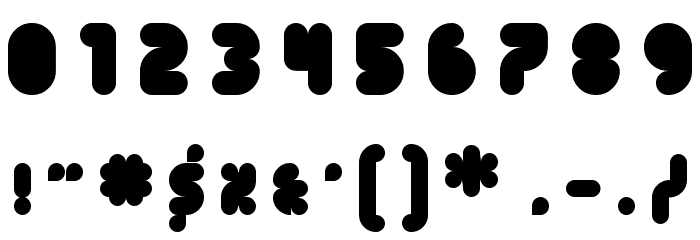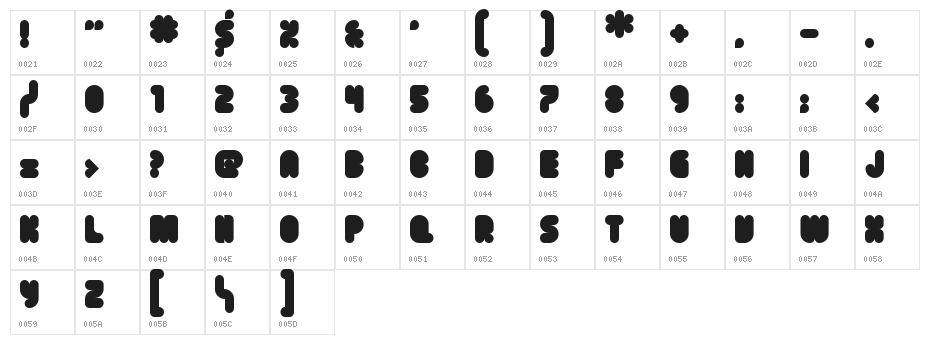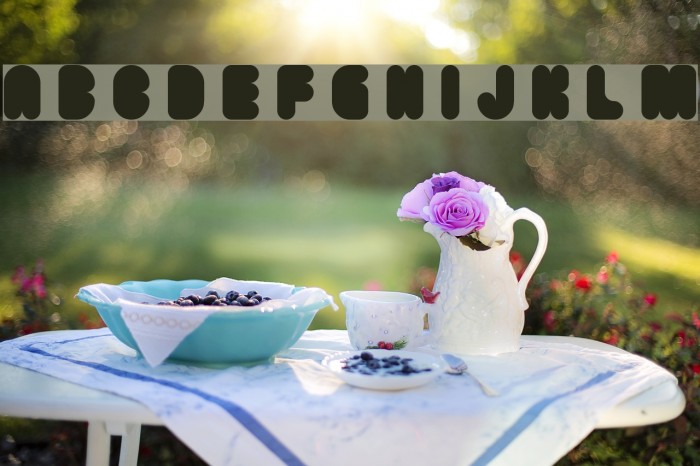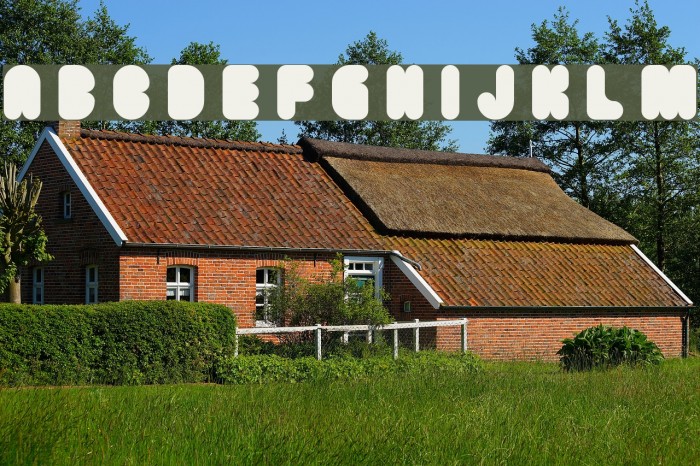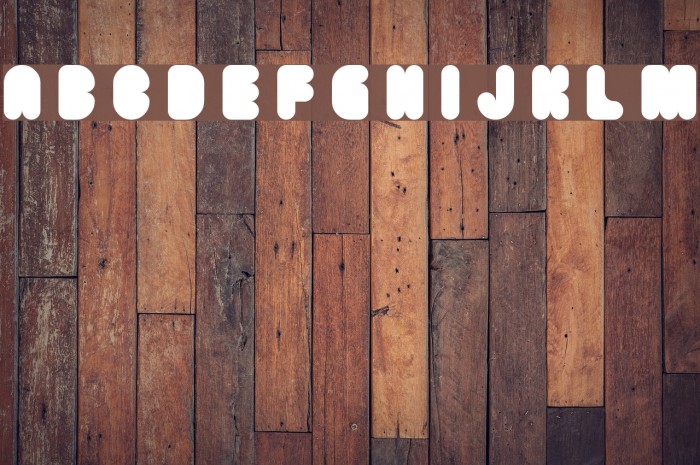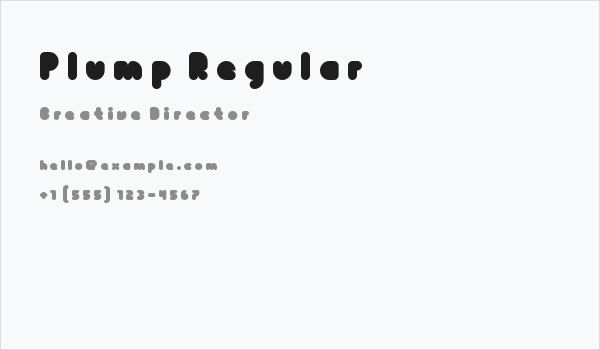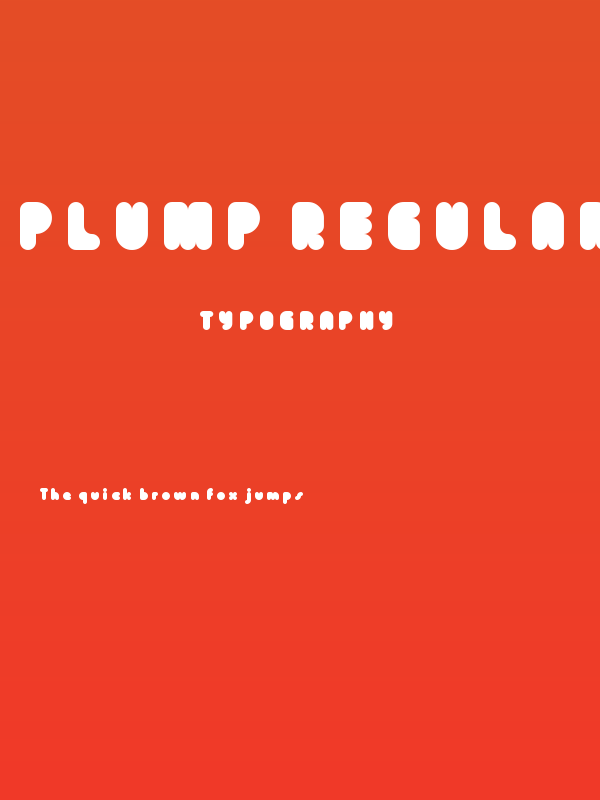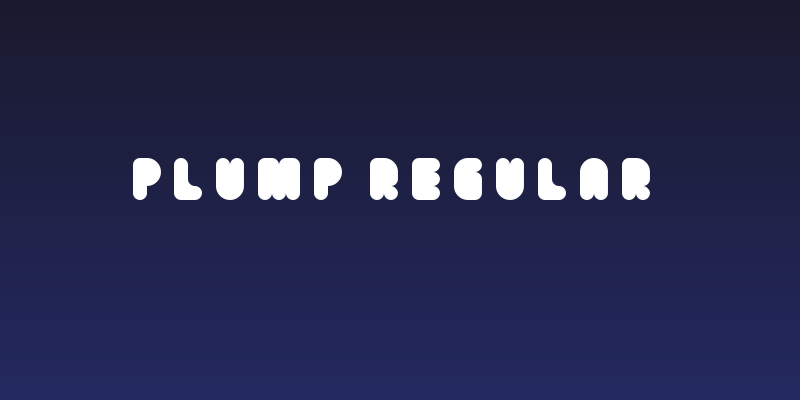
Plump Regular Font
Plump Regular Description
This font features a bold and rounded style, characterized by its thick, uniform strokes and playful appearance. The letters are highly rounded, giving them a bubbly and friendly look. The overall design is consistent, with each character maintaining a similar weight and width, resulting in a cohesive and harmonious appearance. The font's playful nature makes it suitable for casual and fun designs, where a lighthearted and approachable feel is desired. Its boldness ensures high readability, even at smaller sizes, while the rounded edges soften the overall look, making it inviting and engaging.
| Overall Style | Playful, Modern |
| Proposed Projects | Ideal for children's books, playful branding, party invitations, and casual posters. |